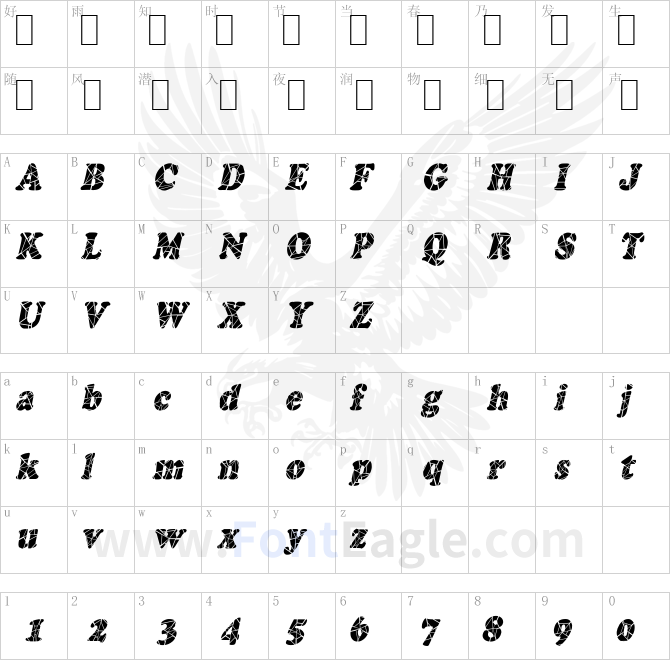
Marshmallow-Cracked-Condensed Italic.ttf Font Image
Marshmallow-Cracked-Condensed Italic.ttf Base Font Information
- Font name:Marshmallow-Cracked-Condensed
- Font Subfamily ID:CSC:Marshmallow Cracked-Condensed Italic
- Font Full Name:Marshmallow-Cracked-Condensed Italic
- Postscript:Marshmallow-Cracked-CondensedItalic
Marshmallow-Cracked-Condensed Italic.ttf Characters Sample